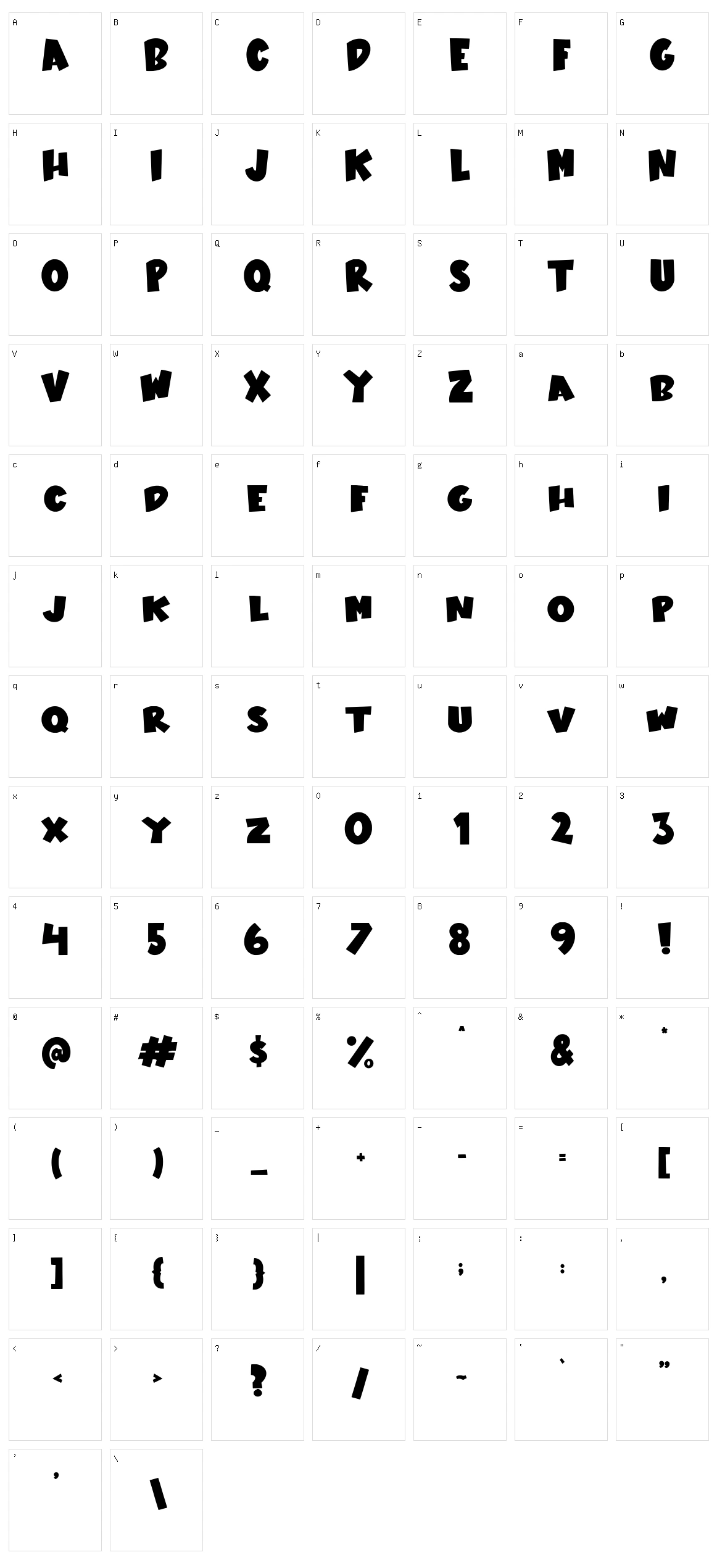
The free font Nosy Ghost is carefully designed by Hatf Type, showcasing a thoughtful balance of creativity and usability and falls under the Cartoon font style. When you download the ZIP file, it contains only 35.64 KB of font files, making it lightweight and quick to download. Please review the license details below to understand permitted usage and distribution rights. If license information is not available, we recommend using this font for personal projects only or contacting the author directly for commercial usage permissions.